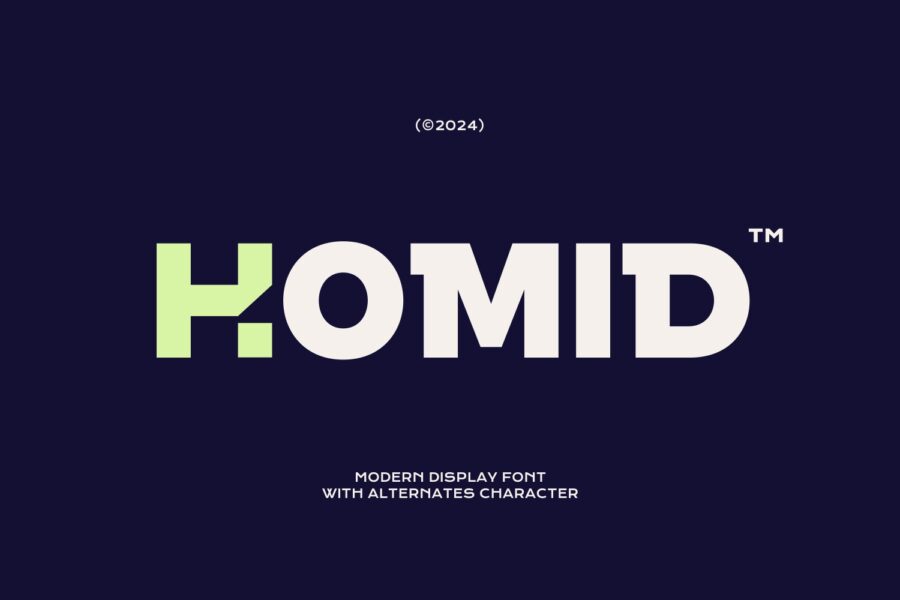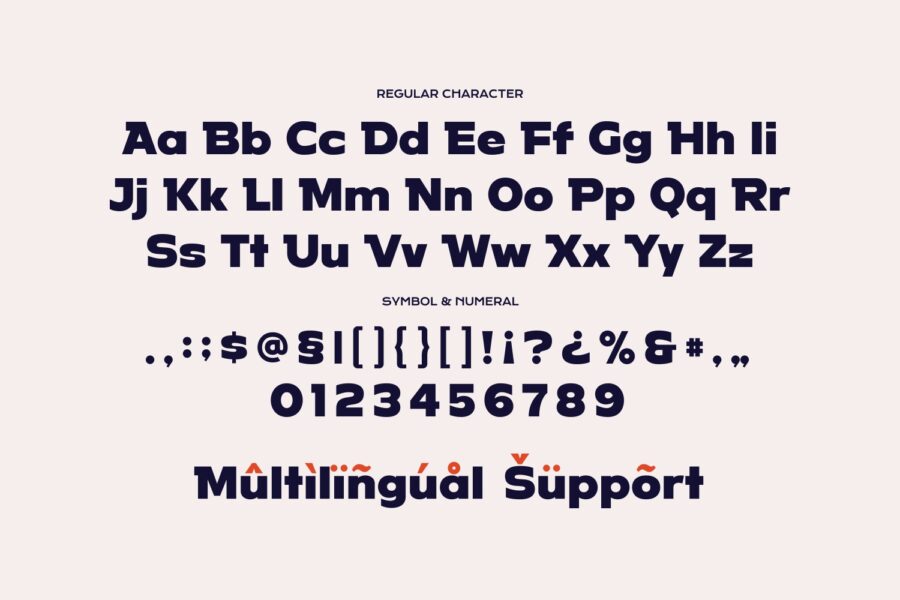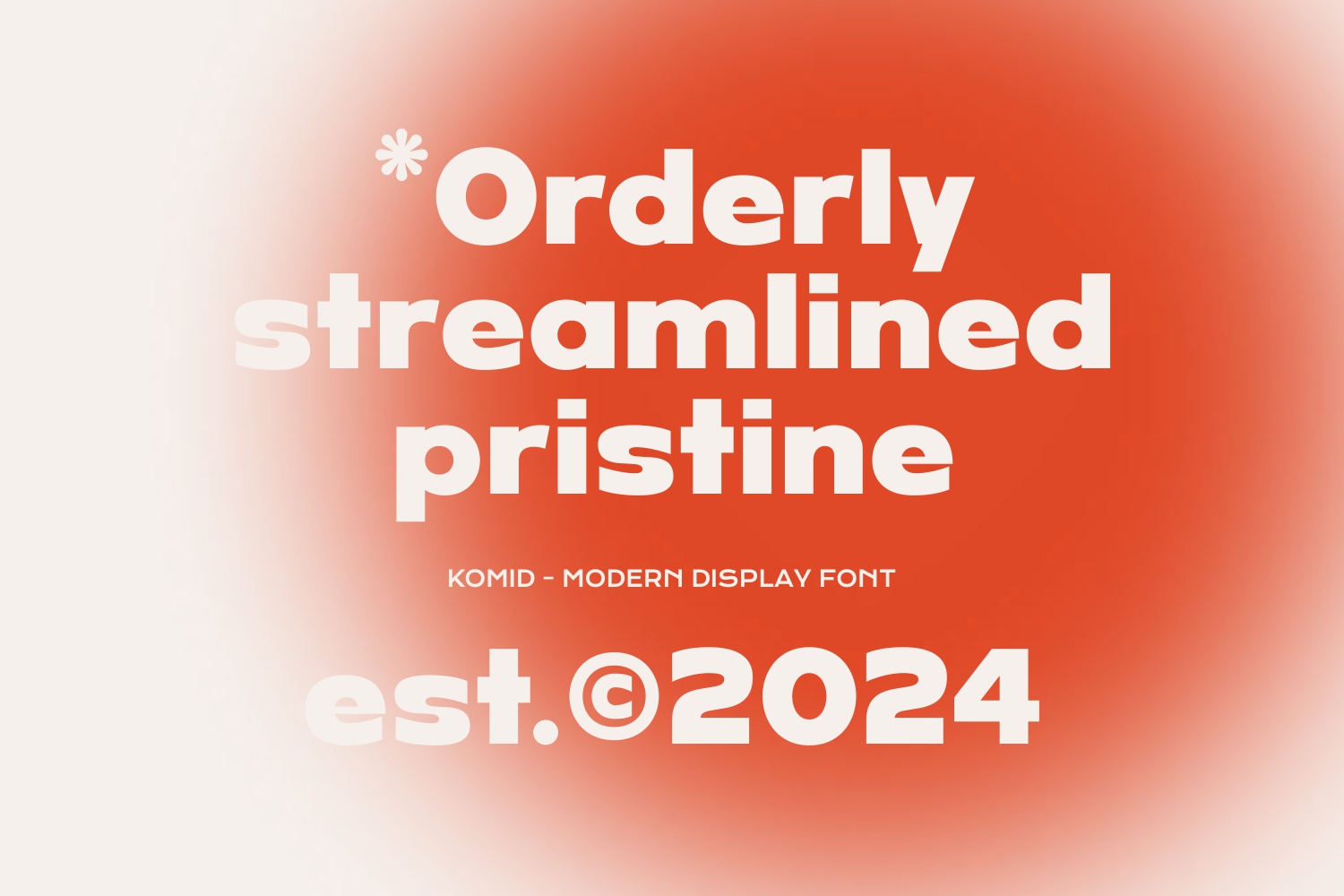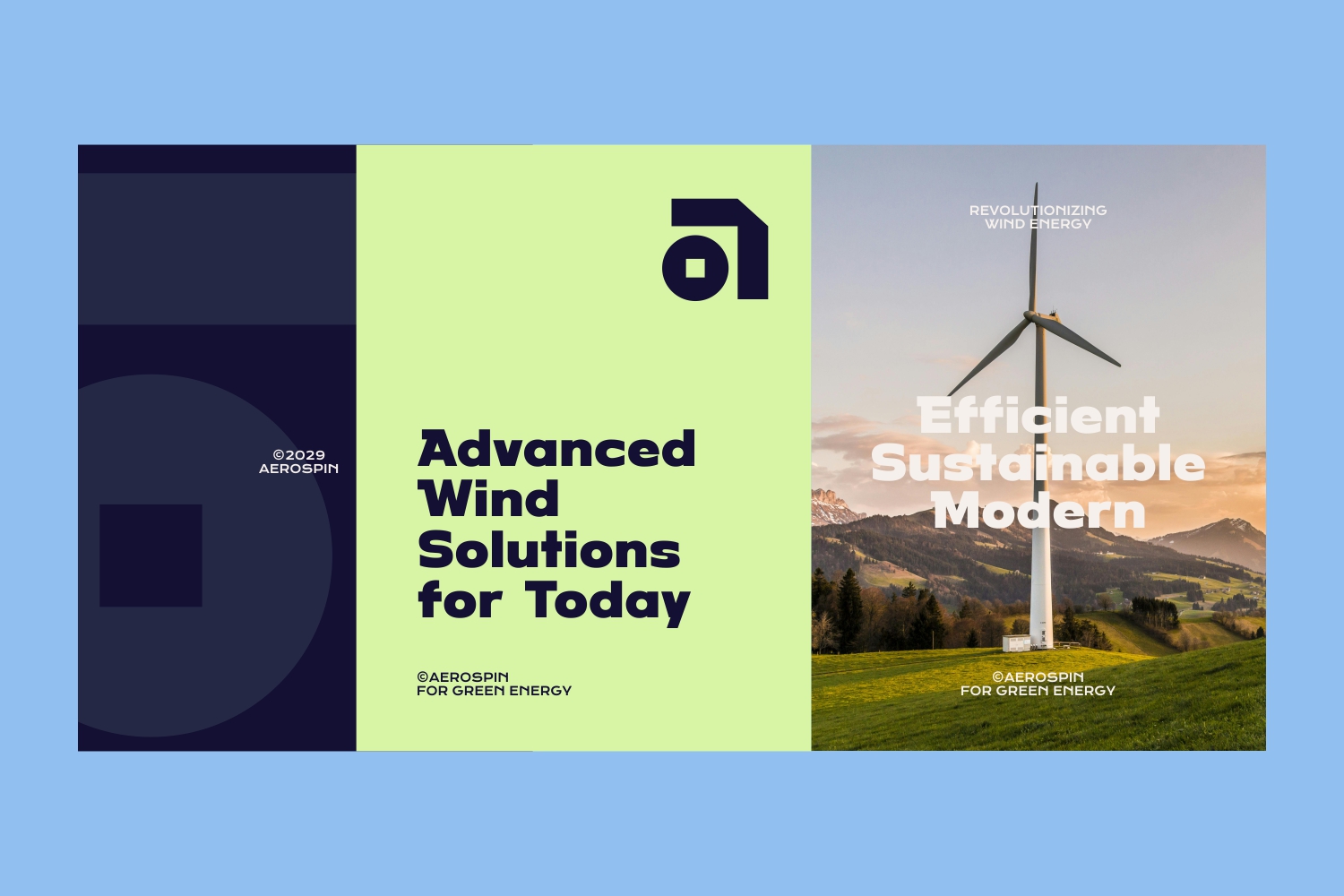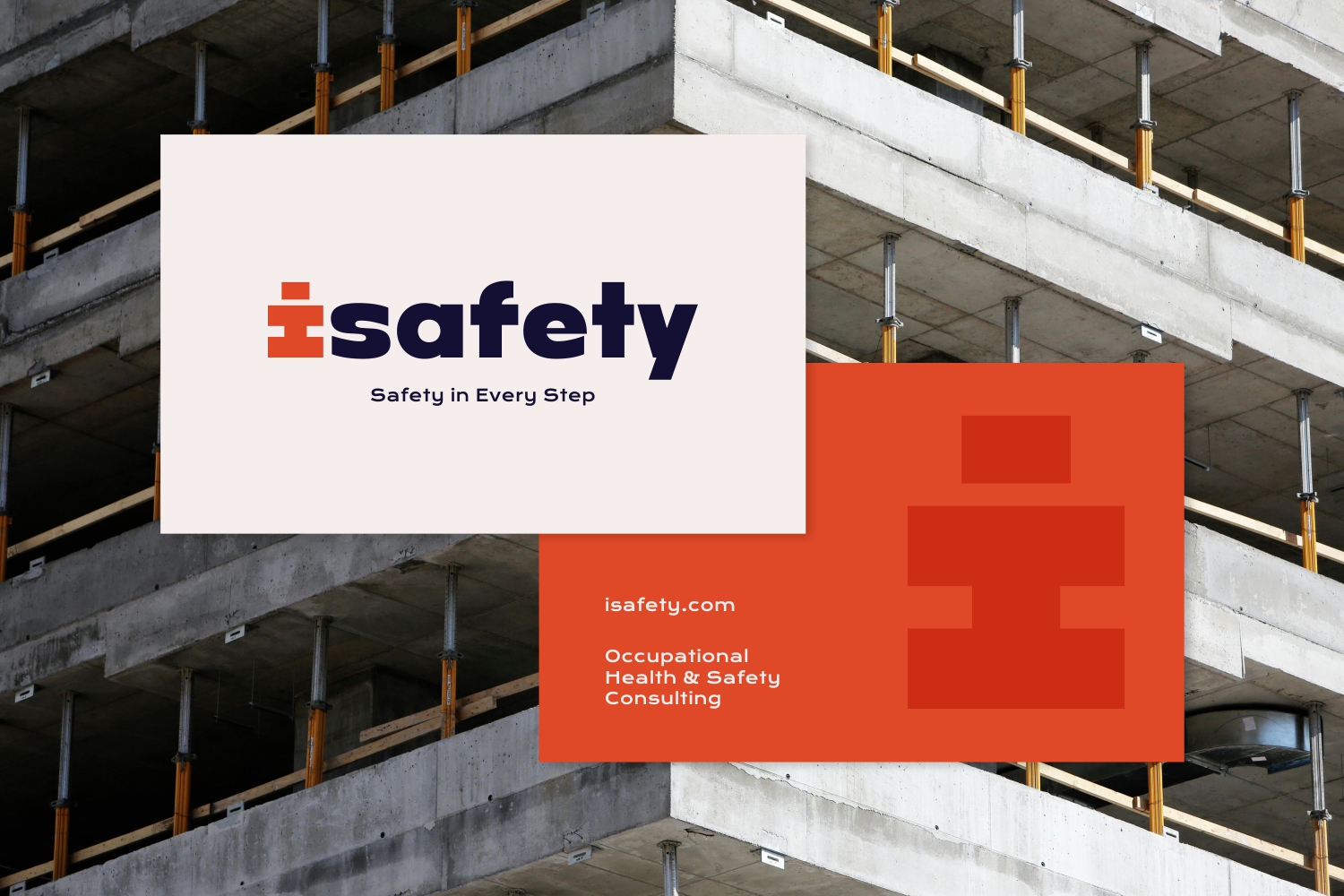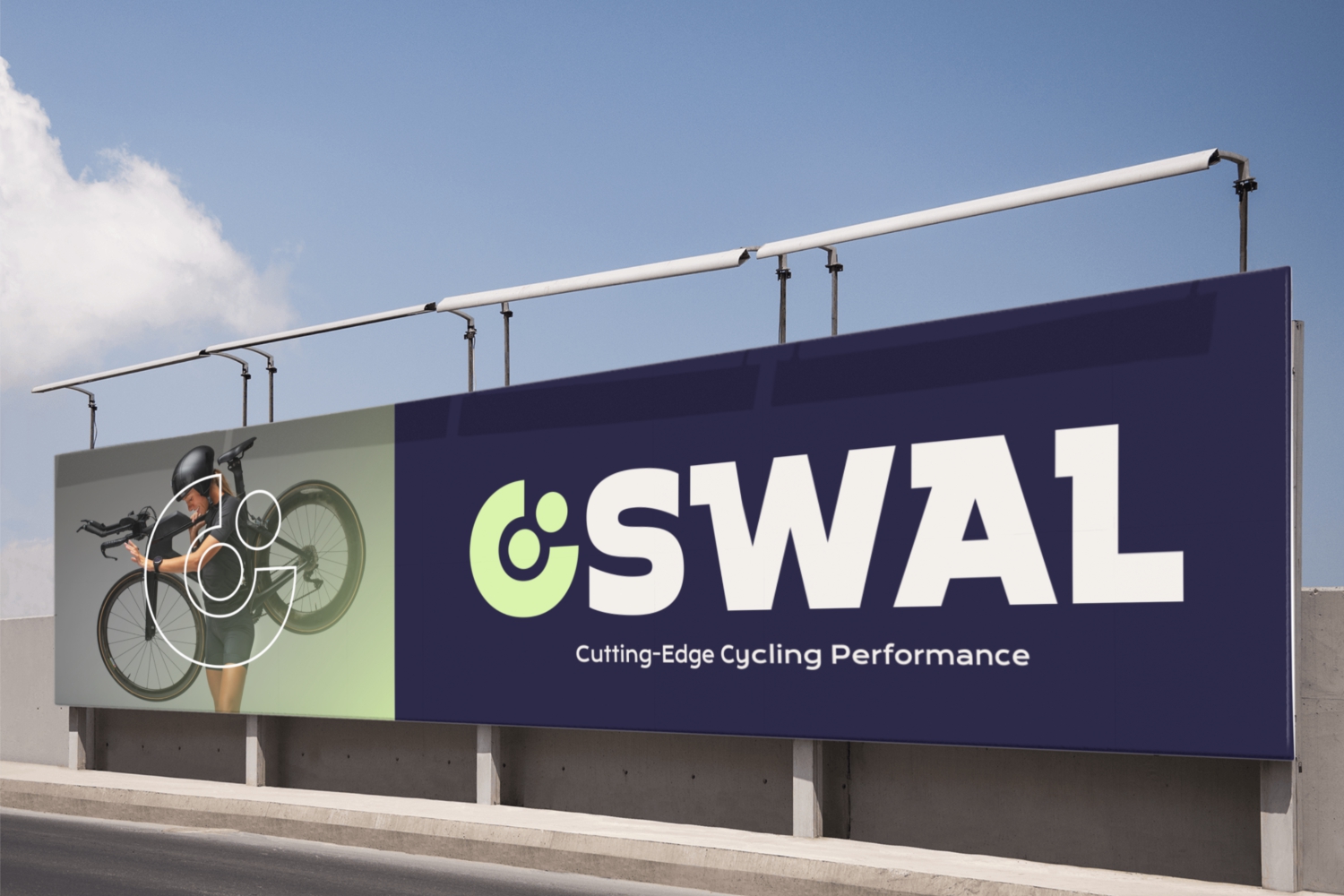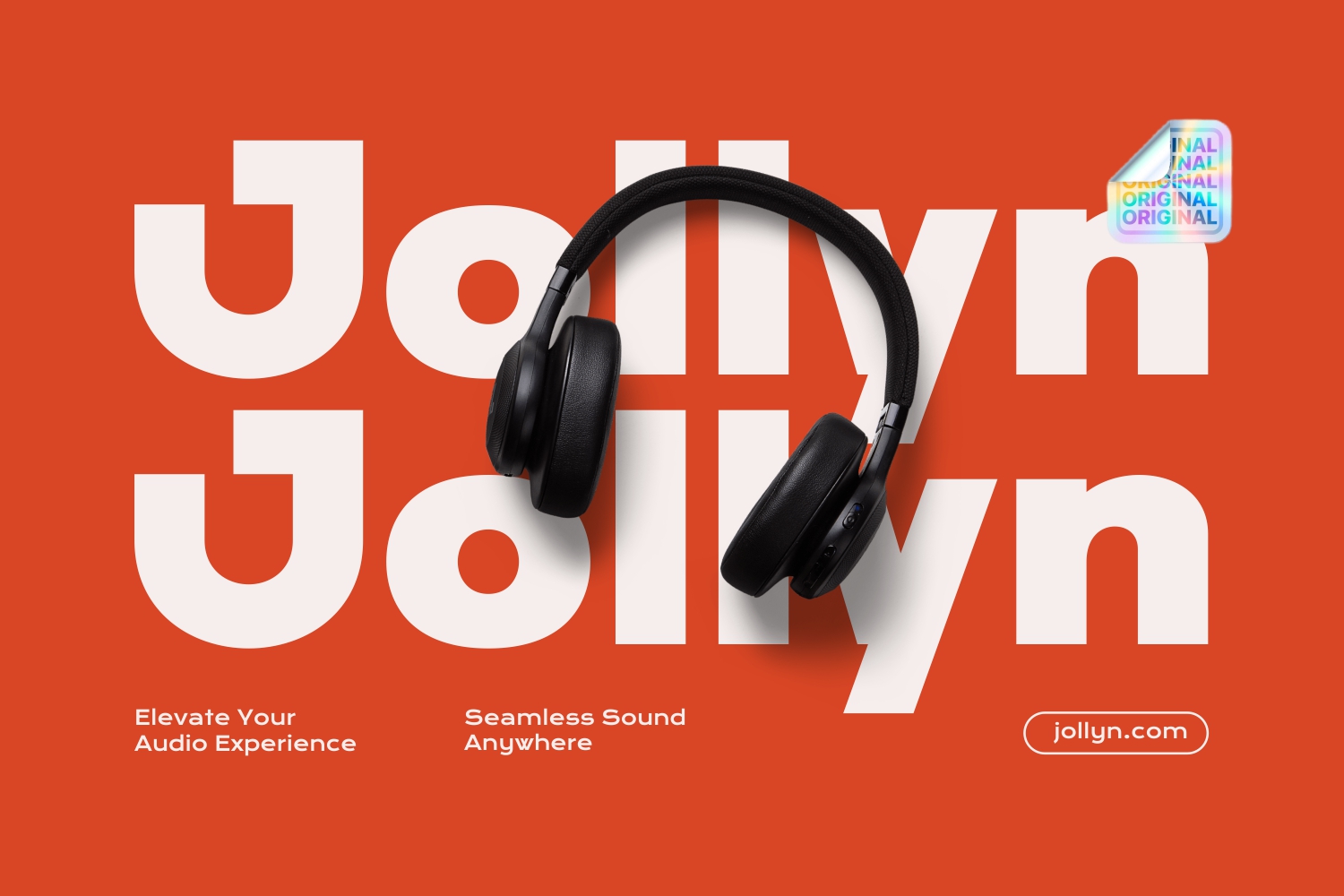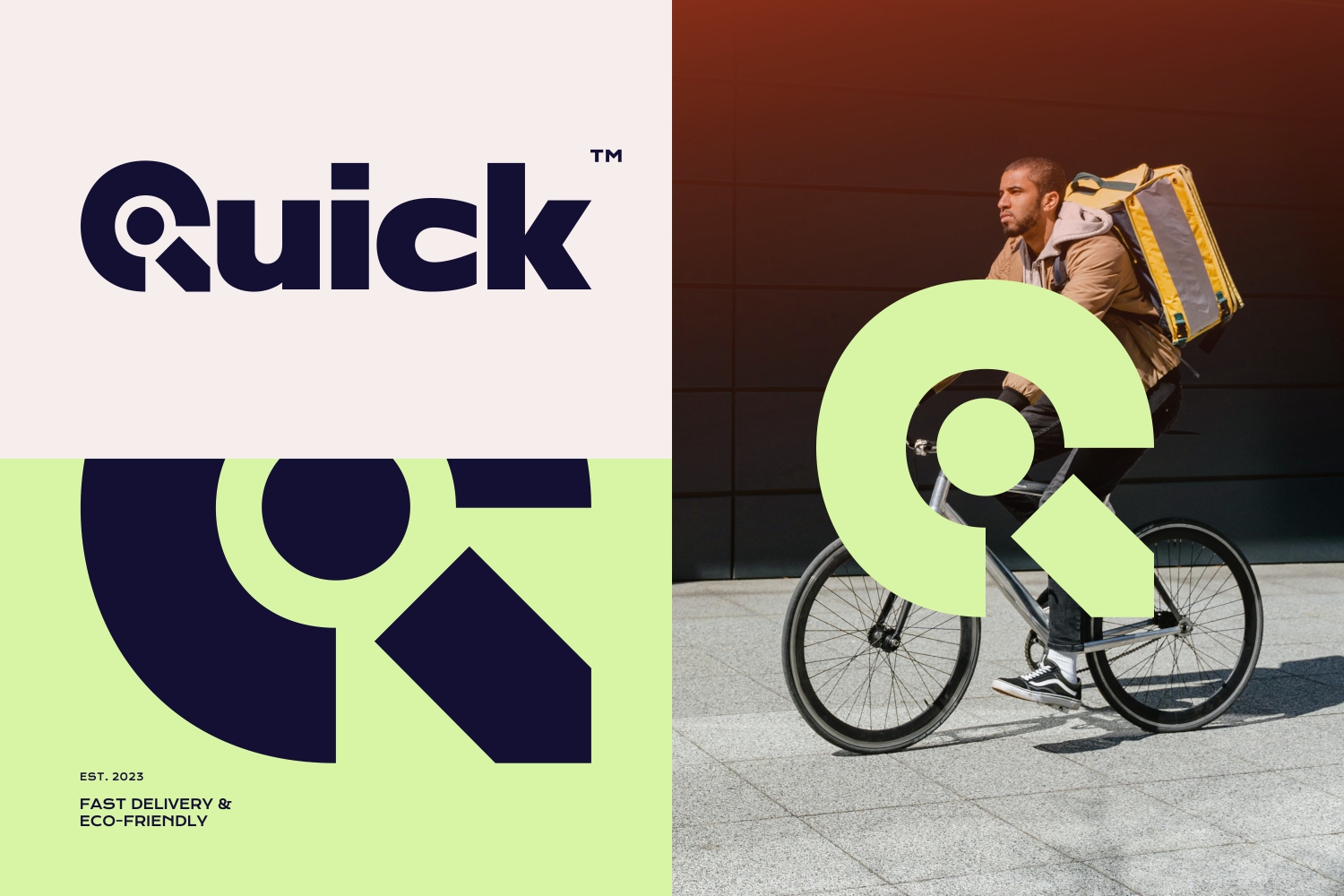
Komid
Glyphs for Komid
KOMID is a modern display typeface with bold geometric construction and striking alternate characters. Designed with precision and modular aesthetics, it delivers a strong, futuristic impression—ideal for branding, tech visuals, impactful posters, and standout headlines. Each letterform maintains a clean, confident structure, making it both functional and highly expressive.
Packed with versatile alternate characters, KOMID opens up creative possibilities for logotypes, packaging, and visual identity projects. The font includes full multilingual support, symbols, punctuation, and numerals—making it a comprehensive choice for designers seeking bold, structured, and visually captivating typography.